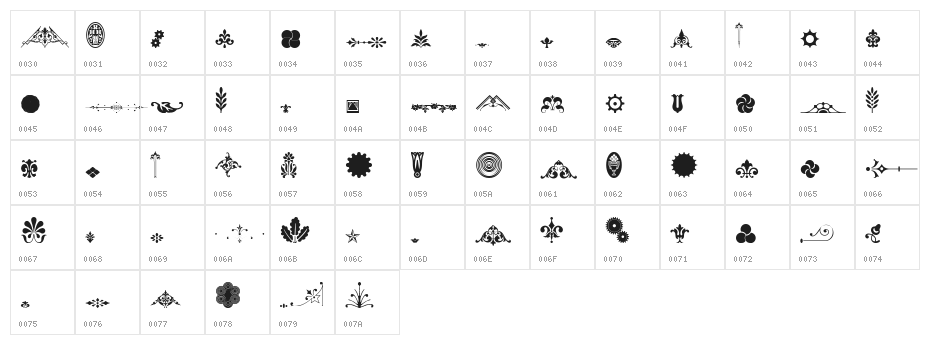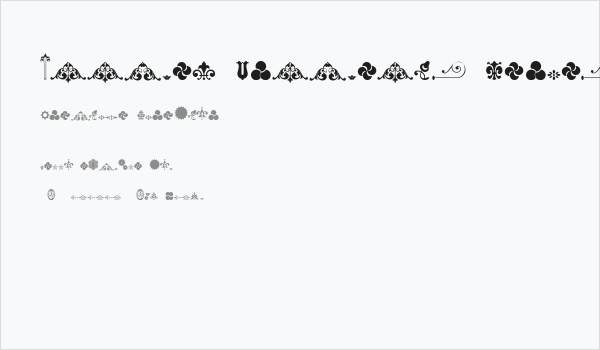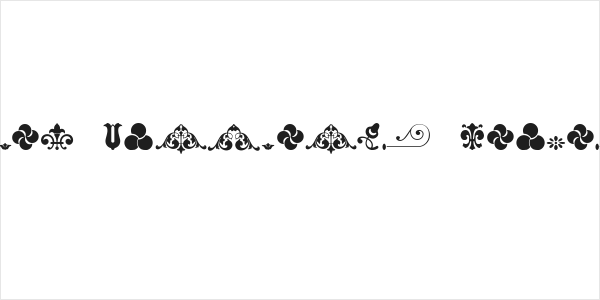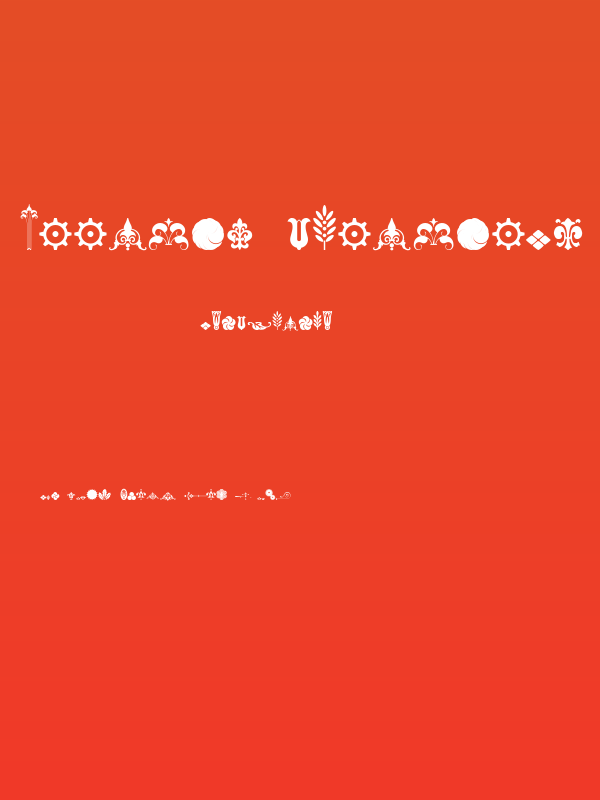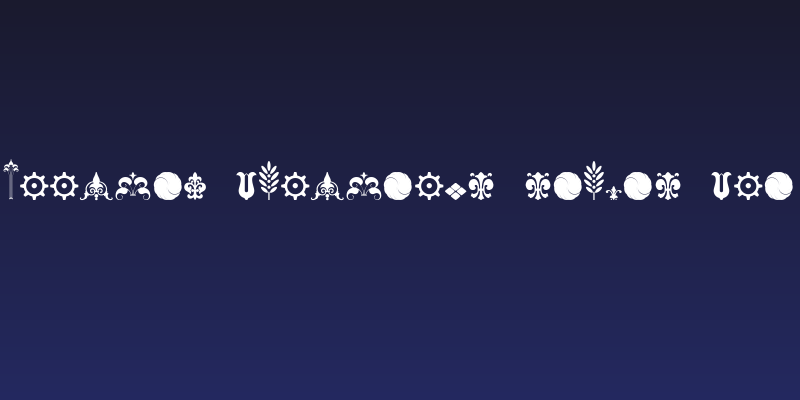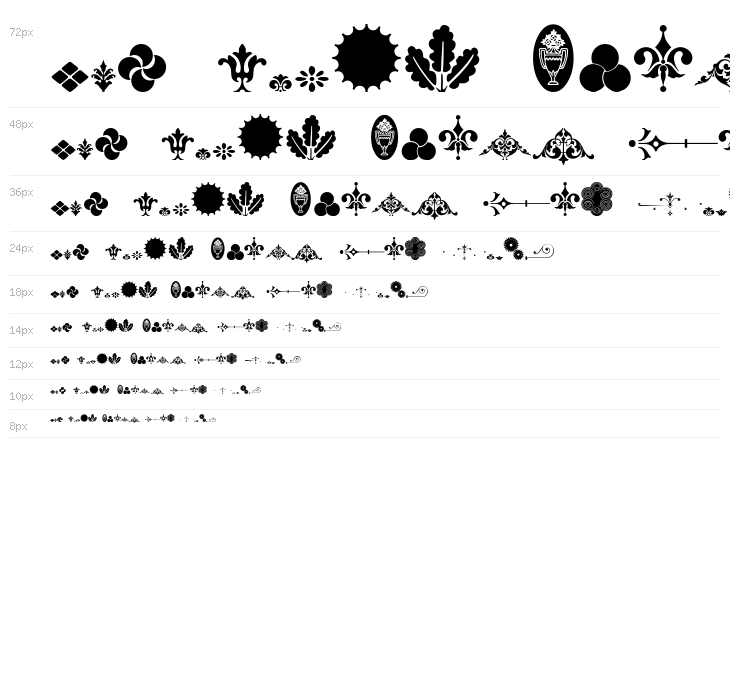
Unnamed Ornaments Series One Font
Unnamed Ornaments Series One Description
A collection of highly decorative black and white ornamental glyphs, featuring intricate flourishes, floral motifs, geometric shapes, and vintage embellishments. Each symbol is unique, with a mix of symmetrical and asymmetrical designs, suitable for use as borders, dividers, or decorative accents.
Overall StyleVintage, Ornamental, Decorative
Use CaseBorders, Dividers, Decorative accents, Logos
Proposed ProjectsWedding invitations, certificates, book covers, vintage posters, branding, packaging, decorative dividers.